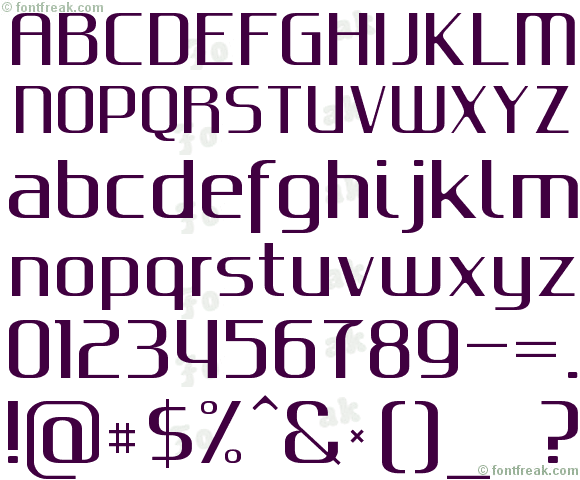
Gputeks Bold
About Gputeks Bold
Gputeks Bold is a striking sans-serif typeface designed by Grzegorz L. This font embodies a modern aesthetic with its clean lines and geometric shapes, making it an excellent choice for a variety of design projects. The stroke weight is consistent and robust, providing a strong visual presence that captures attention without overwhelming the viewer. Its letterforms exhibit minimal contrast, which enhances readability and contributes to its contemporary appeal. The spacing is thoughtfully balanced, ensuring clarity while maintaining a cohesive look across different applications.
This versatile font is ideal for several use cases. For instance, it works beautifully in branding projects, where a modern and bold statement is essential. Gputeks Bold is also perfect for creating impactful headers in websites or magazines, adding a layer of sophistication to any layout. Additionally, it can be effectively used in signage and posters, where legibility is key. For graphic designers looking to create memorable invitations, this font can elevate wedding invitations or formal event announcements, offering a stylish yet approachable feel.
What sets Gputeks Bold apart is its ability to blend simplicity with a strong visual impact. This balance makes it a standout choice for those looking to create memorable designs that resonate with their audience. Whether used in print or digital media, Gputeks Bold is sure to leave a lasting impression.